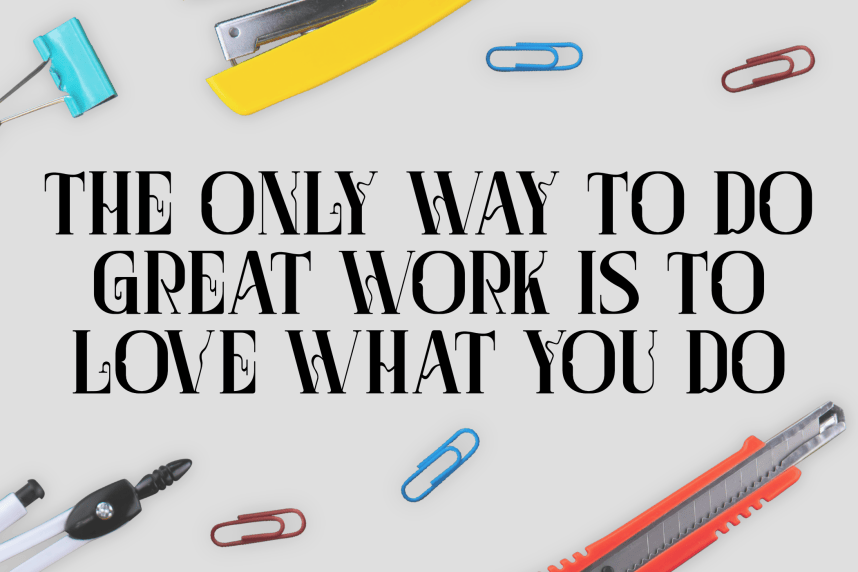
LiDia Formal Serif Font
LiDia Formal Serif Font – elegant and structured serif font designed for formal, professional settings. With its neat, polished appearance, it’s well-suited for corporate branding, academic materials, editorial layouts, and anywhere a refined tone is needed.
Imam Fathoni